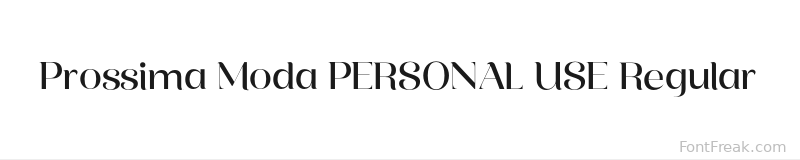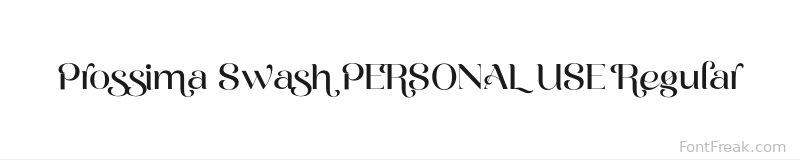
Prossima Moda PERSONAL USE Regular
Prossima Swash PERSONAL USE Regular
About Prossima Moda PERSONAL USE Regular
The Prossima Moda PERSONAL USE Regular font, designed by Mans Greback, is an elegant serif typeface that exudes a sense of sophistication and modernity. Released in 2023, this font features a harmonious blend of classic and contemporary design elements, making it a versatile choice for various creative projects. The stroke weight is well-balanced, providing a refined aesthetic, while the contrast between thick and thin lines enhances its visual appeal. The spacing is thoughtfully designed, ensuring excellent legibility even at smaller sizes.
This font is particularly well-suited for use cases such as wedding invitations, where its graceful curves and swash elements can create an inviting atmosphere. It also shines in fashion magazine layouts and editorials, adding a touch of glamour to headlines and body text. Restaurant menus can benefit from its stylish appearance, helping to elevate the dining experience and attract attention. Additionally, Prossima Moda can be effectively used in branding materials for boutique shops, giving a unique, upscale feel that resonates with target audiences.
What makes Prossima Moda PERSONAL USE Regular stand out is its ability to balance timeless elegance with contemporary flair. This font allows designers to create visually stunning pieces that captivate and engage audiences, making it a worthwhile addition to any creative toolkit. For those interested, the Prossima Moda PERSONAL USE Regular font free download is an excellent opportunity to explore this beautiful typeface.